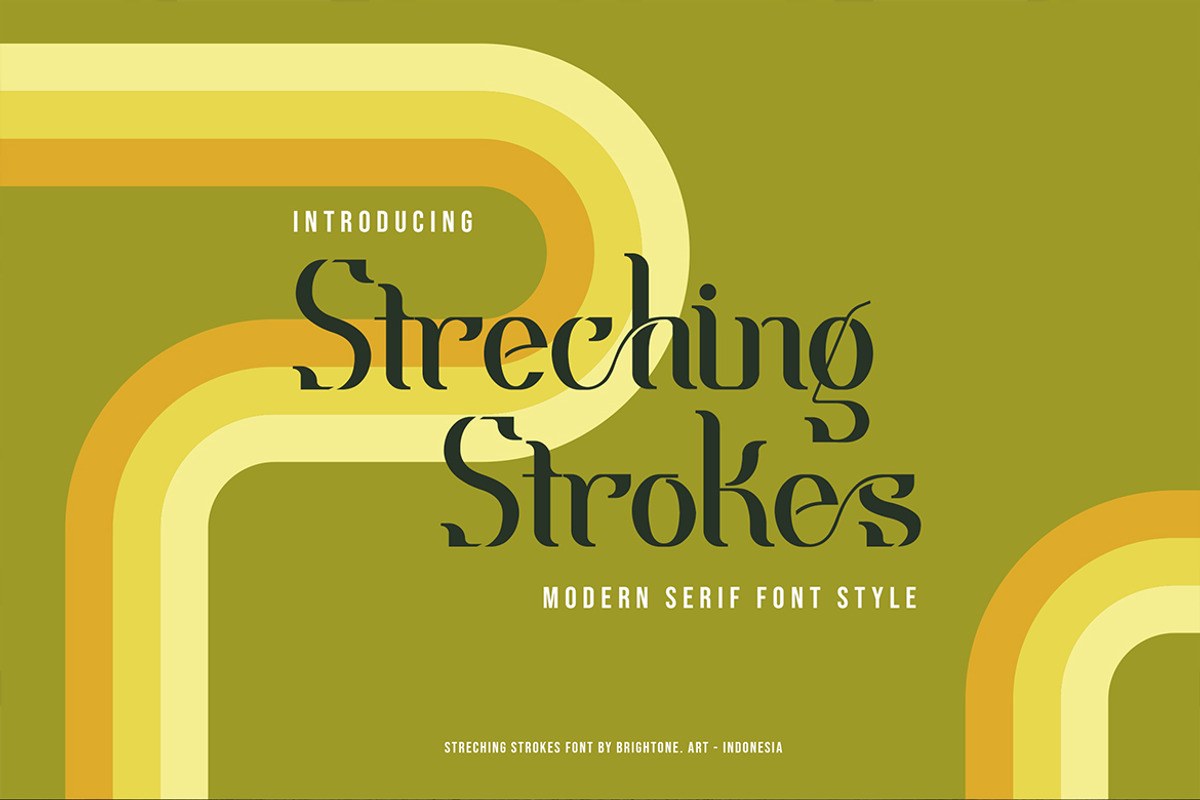
Streching Strokes - Modern Serif
STRECHING STROKES is Modern serif font with good style includes uppercase letters, numerals, a large range of punctuation and multilingual support. Modern Serif style for your logo lettering, logo, label, packaging, sticker, branding and many more